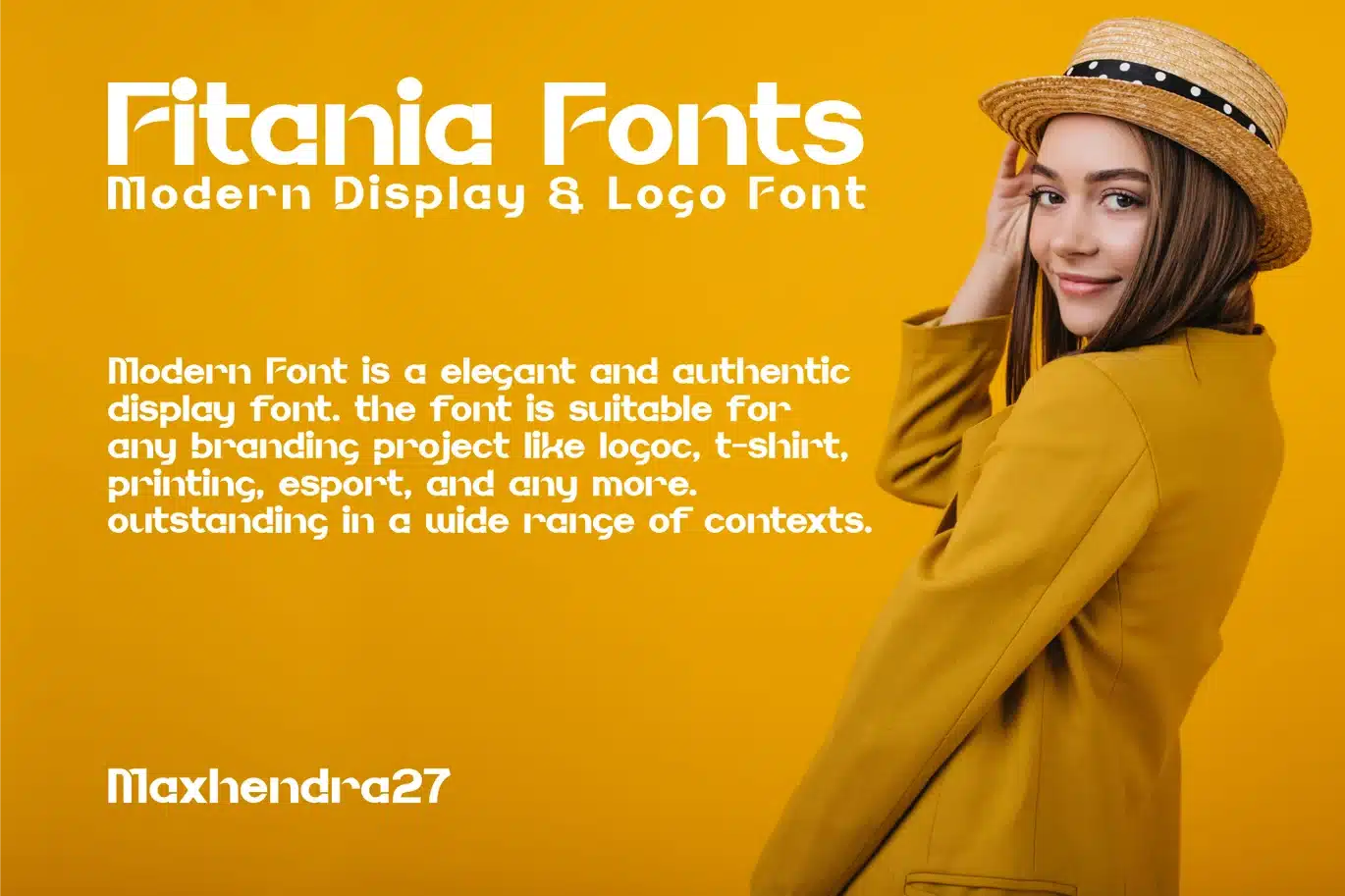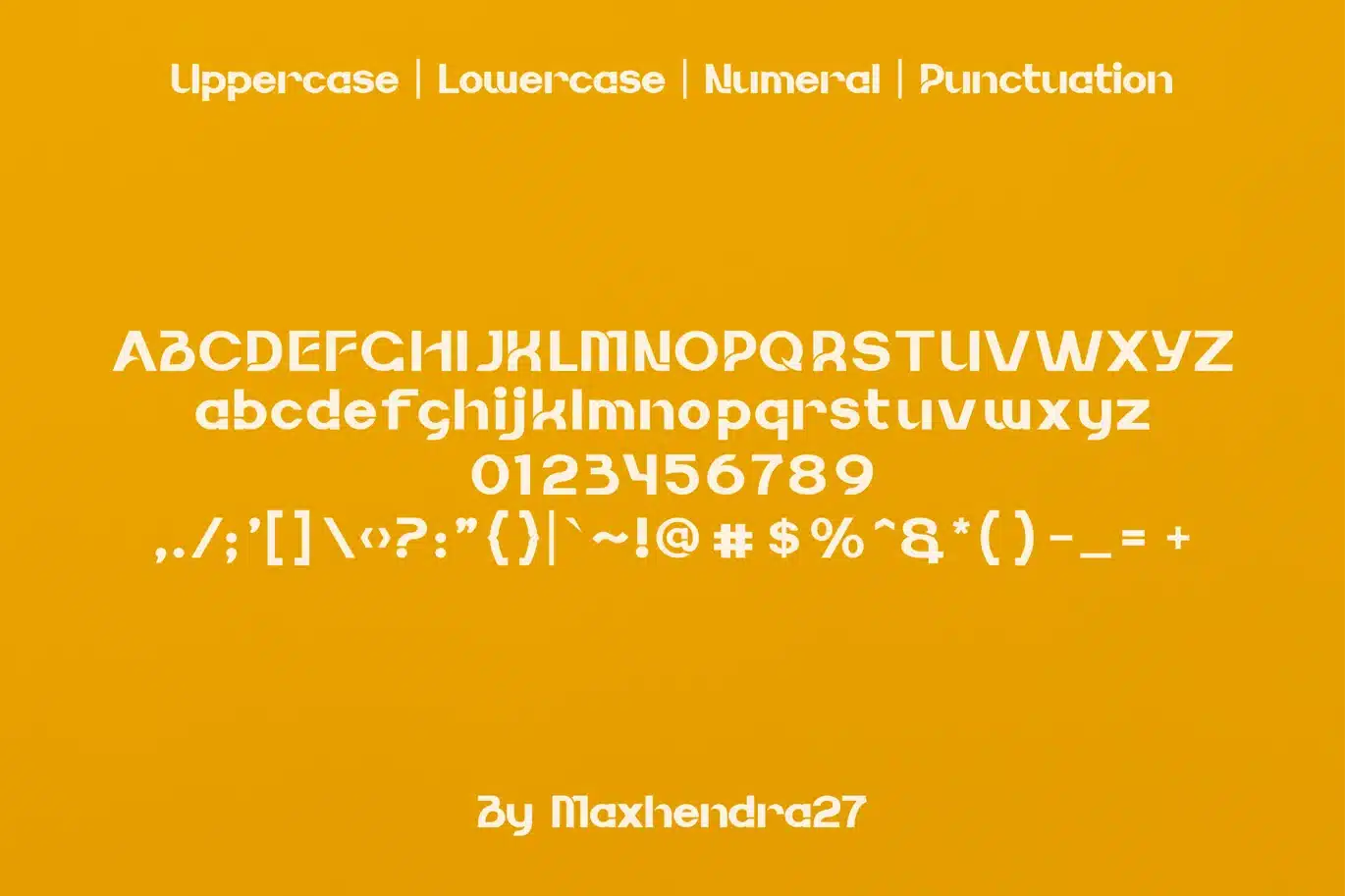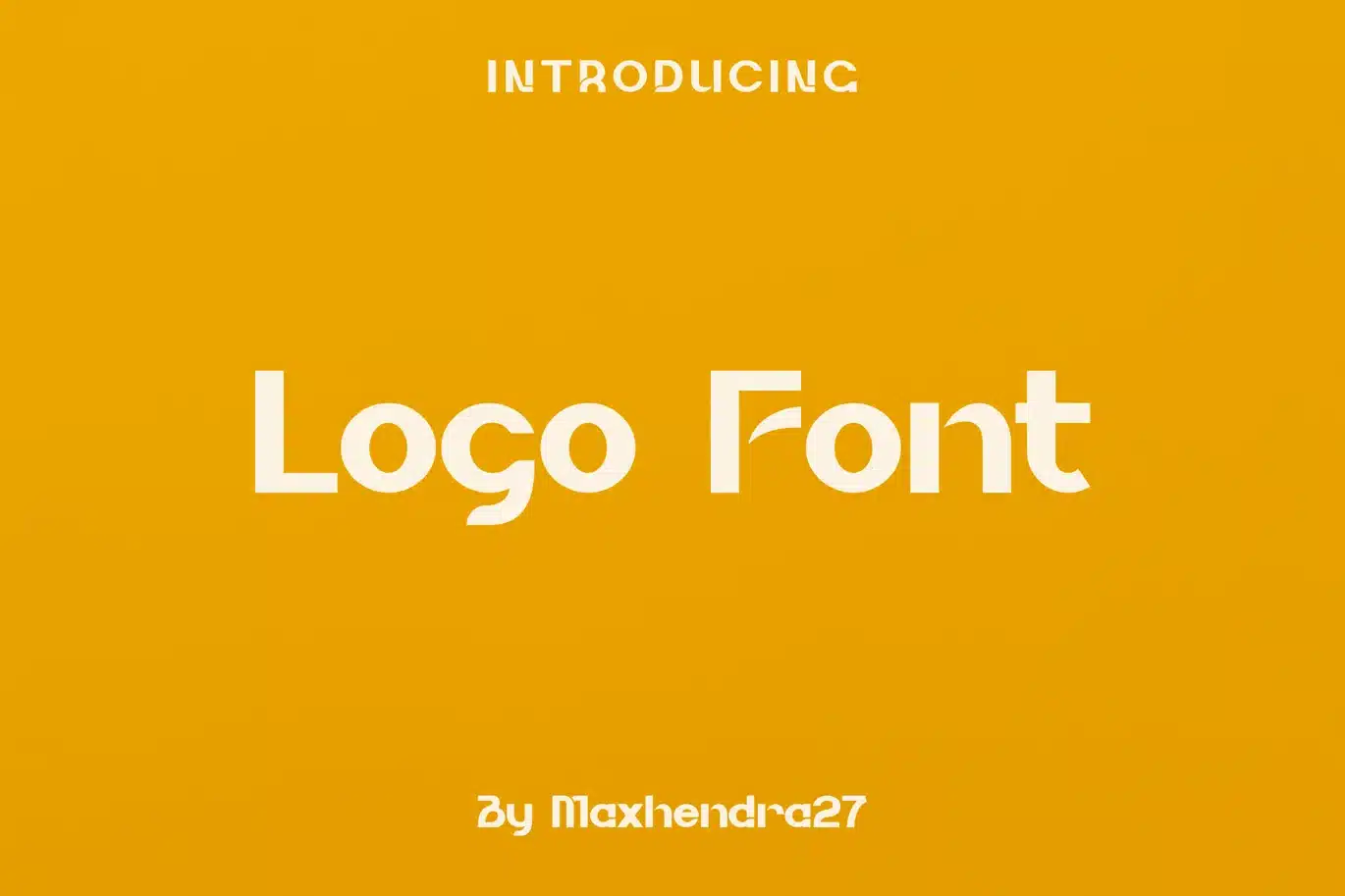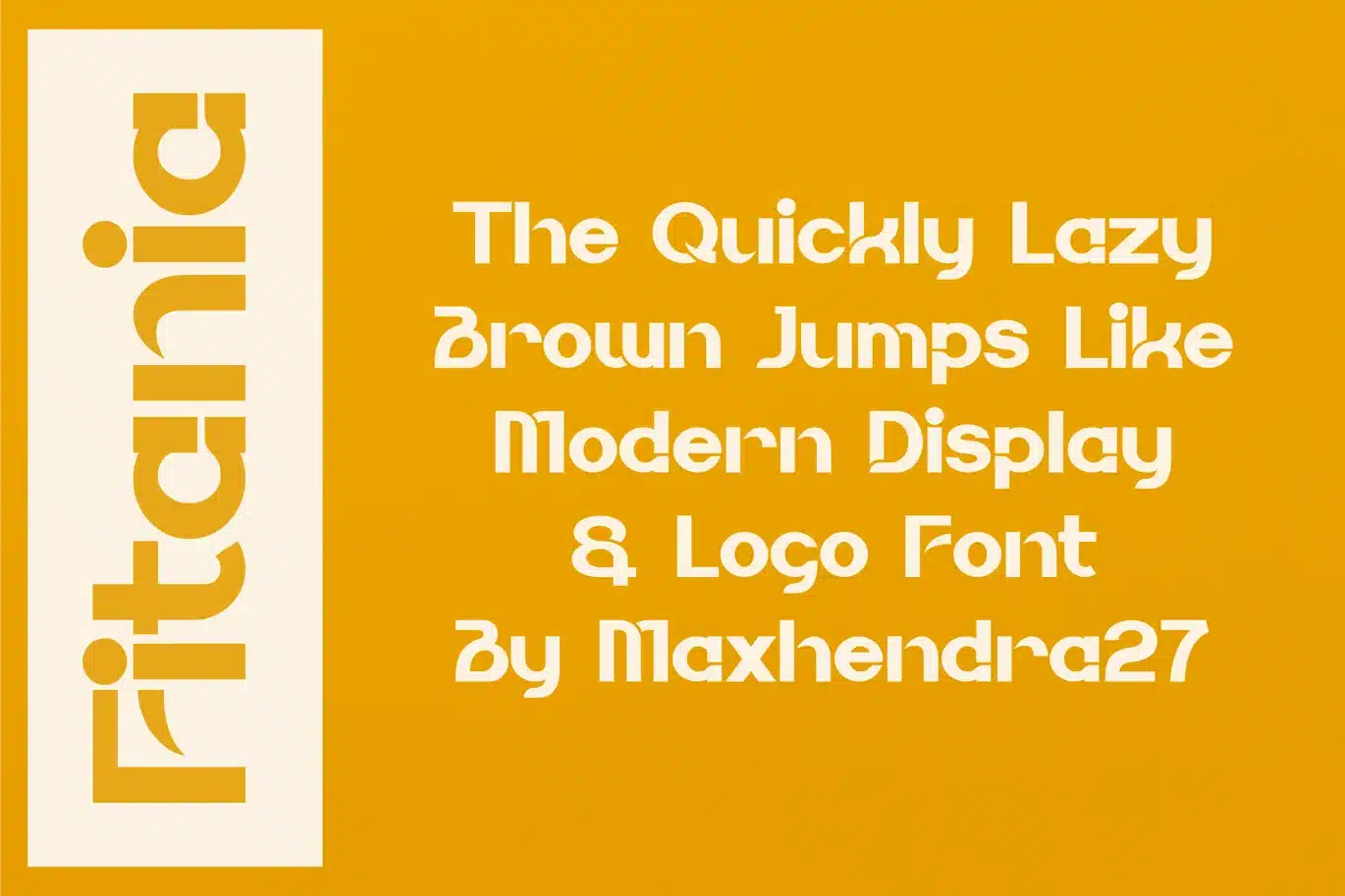
Fitania – Modern Display & Logo font
Fitania is a super thick typeface with more traditional letter shapes, making it perfect for creating (or recreating) the concise look of film poster production credits.
Feature :
- Uppercase Characters
- Lowercase Characters
- Punctuation & Numbers